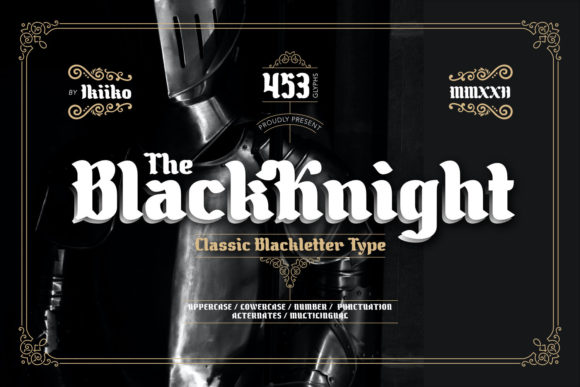
Journey to an era of grandeur and nobility with The Black Knight Font, a splendid blackletter typeface that captures the essence of the old European Empire. Inspired by historic texts and manuscripts, this font exudes a charm that is both timeless and captivating.
Immerse yourself in the world of classic writing, where letters were crafted with intricate detail and precision. The Black Knight Font features a range of unique letter alternates, allowing you to create designs that are as distinctive as they are elegant. With its PUA encoding, accessing the full spectrum of swashes and glyphs is effortless, ensuring that your creations shine with artistry and flair.
Unleash your imagination and let The Black Knight Font transport you to a realm where the written word takes on a life of its own. From majestic logos and captivating posters to exquisite wedding invitations and heartfelt letters, this font is your gateway to a world of boundless creativity. Its versatility extends to branding, social media, and web design, making it the perfect choice for businesses and individuals seeking a touch of sophistication and intrigue.
With The Black Knight Font, you hold the power to evoke emotions and create lasting impressions. Its timeless beauty will add a touch of luxury to any project, leaving your audience spellbound and eager for more. Embrace the spirit of old-world craftsmanship and embark on a creative journey like no other.